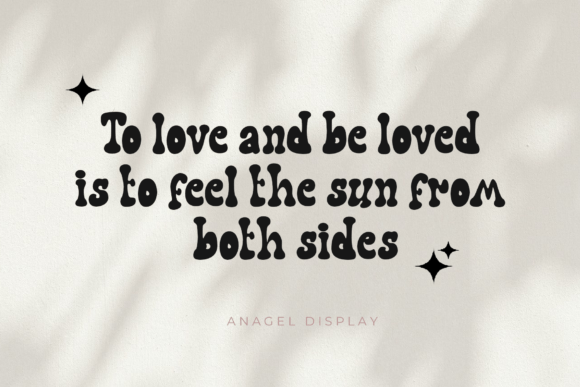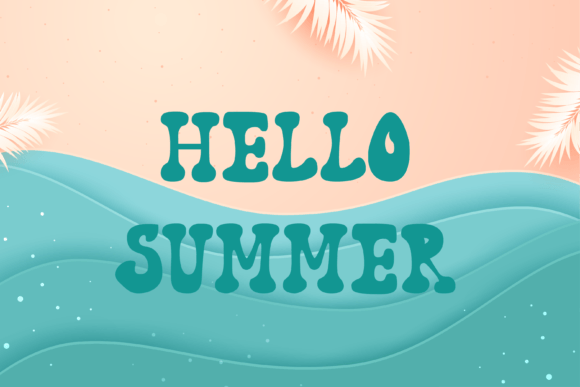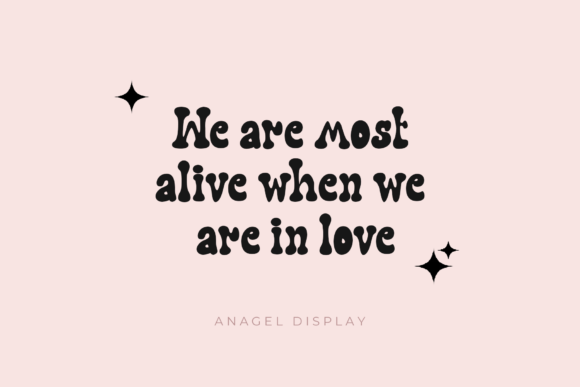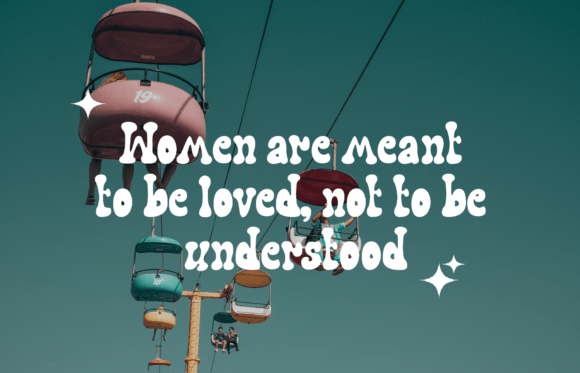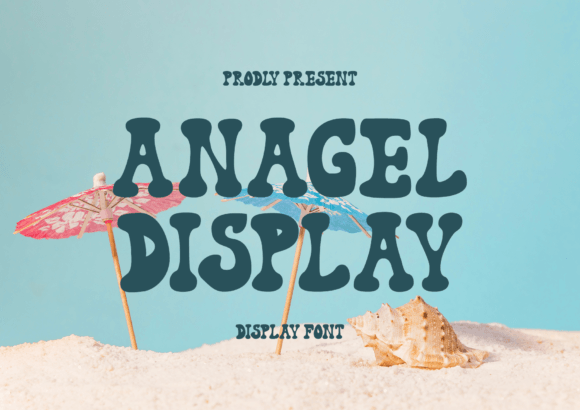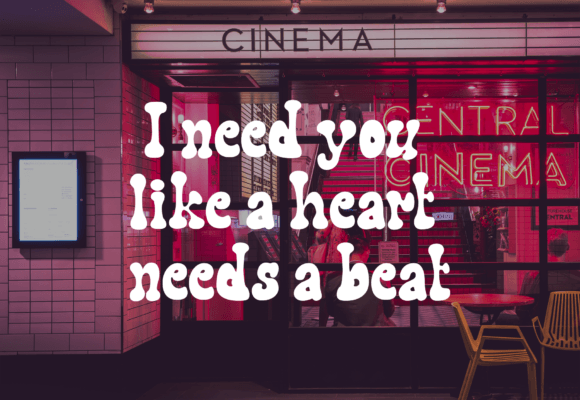
Introducing Anagel Font: The Retro Groovy Display Font You Need
Are you tired of using the same old fonts for your designs, crafts, and presentations? Look no further! Anagel Font is here to revolutionize your creative projects with its unique retro groovy style. This versatile display font is perfect for a wide range of applications, from digital design to handmade crafts, and is sure to become your new go-to font.
The Retro Groovy Vibe of Anagel Font
Anagel Font boasts a distinctive retro aesthetic that’s reminiscent of the 1960s and 1970s. Its groovy design features bold lines, curvaceous shapes, and a playful flair that’s sure to add a touch of nostalgia to your projects. Whether you’re creating posters, flyers, or social media graphics, Anagel Font is the perfect choice for adding a dash of retro charm.
Why Designers Love Anagel Font
Designers, rejoice! Anagel Font is a game-changer for your creative projects. Here are just a few reasons why:
- Versatility: Anagel Font is perfect for a wide range of design applications, from digital graphics to print materials.
- Readability: Despite its bold and playful design, Anagel Font is surprisingly easy to read, making it perfect for headlines, titles, and short paragraphs.
- Customization: Anagel Font comes with a range of customization options, allowing you to tailor it to your project’s specific needs.
Crafters, Rejoice!
If you’re a crafter, you know how important it is to have the right fonts on hand. Anagel Font is a dream come true for crafters, offering a unique and stylish way to add text to your projects. Here are just a few ways you can use Anagel Font in your crafting:
- Greeting Cards: Add a touch of retro charm to your greeting cards with Anagel Font.
- Scrapbooking: Use Anagel Font to add bold, playful text to your scrapbook pages.
- DIY Projects: From signs to banners, Anagel Font is the perfect choice for adding a personal touch to your DIY projects.
Using Anagel Font in Presentations
Anagel Font isn’t just limited to design and crafting – it’s also a great choice for presentations. Here are a few ways you can use Anagel Font to take your presentations to the next level:
- Headlines: Use Anagel Font to create bold, eye-catching headlines that grab your audience’s attention.
- Title Slides: Add a touch of retro charm to your title slides with Anagel Font.
- Emphasis: Use Anagel Font to draw attention to key points or statistics in your presentation.
| Font Name | Anagel Font |
| Author | Authentic Studio |
In conclusion, Anagel Font is a versatile and stylish display font that’s perfect for a wide range of creative projects. Whether you’re a designer, crafter, or presenter, Anagel Font has the potential to become your new go-to font. With its unique retro groovy design, ease of use, and customization options, Anagel Font is sure to add a touch of personality to your projects. So why wait? Give Anagel Font a try today and see the difference it can make!
Key Features of Anagel Font
- Retro groovy design
- Versatile and adaptable
- Easy to read
- Customization options
- Perfect for design, crafting, and presentations
Overall, Anagel Font is a fantastic addition to any creative project. Its unique design, versatility, and ease of use make it a must-have for designers, crafters, and presenters alike. So why not give it a try and see the difference it can make in your work?